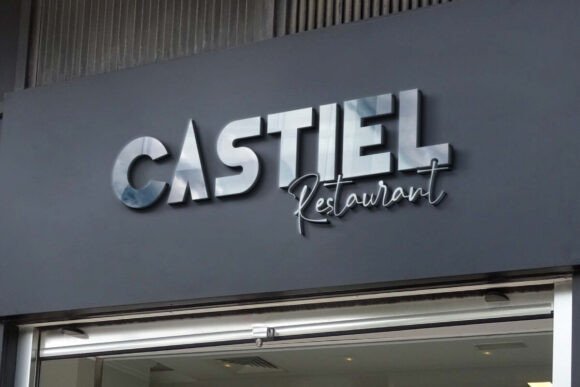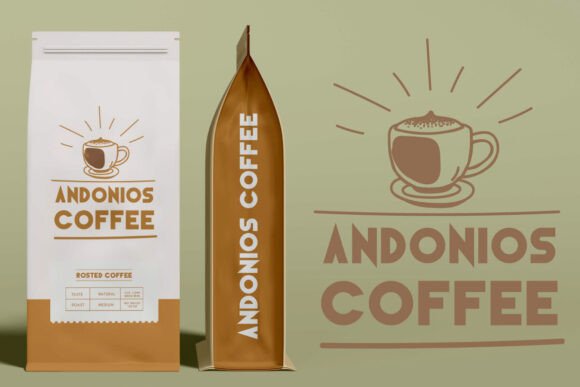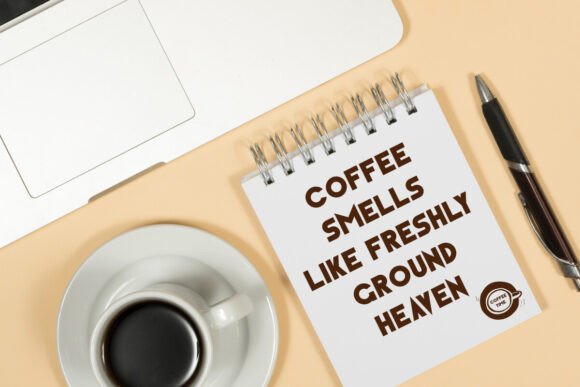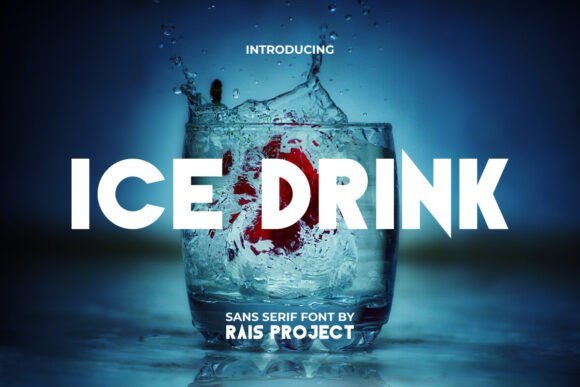
Introduction to Ice Drink Font
Ice Drink Font is a a modern and trendy sans serif font.
Big and bold typeface can emphasize the text you want to add to your design and make it easily recognizable, such as brand image, business card, cover, custom design, invitation, label, magazine, menu, poster, product packaging, quote, signage, web, and more .